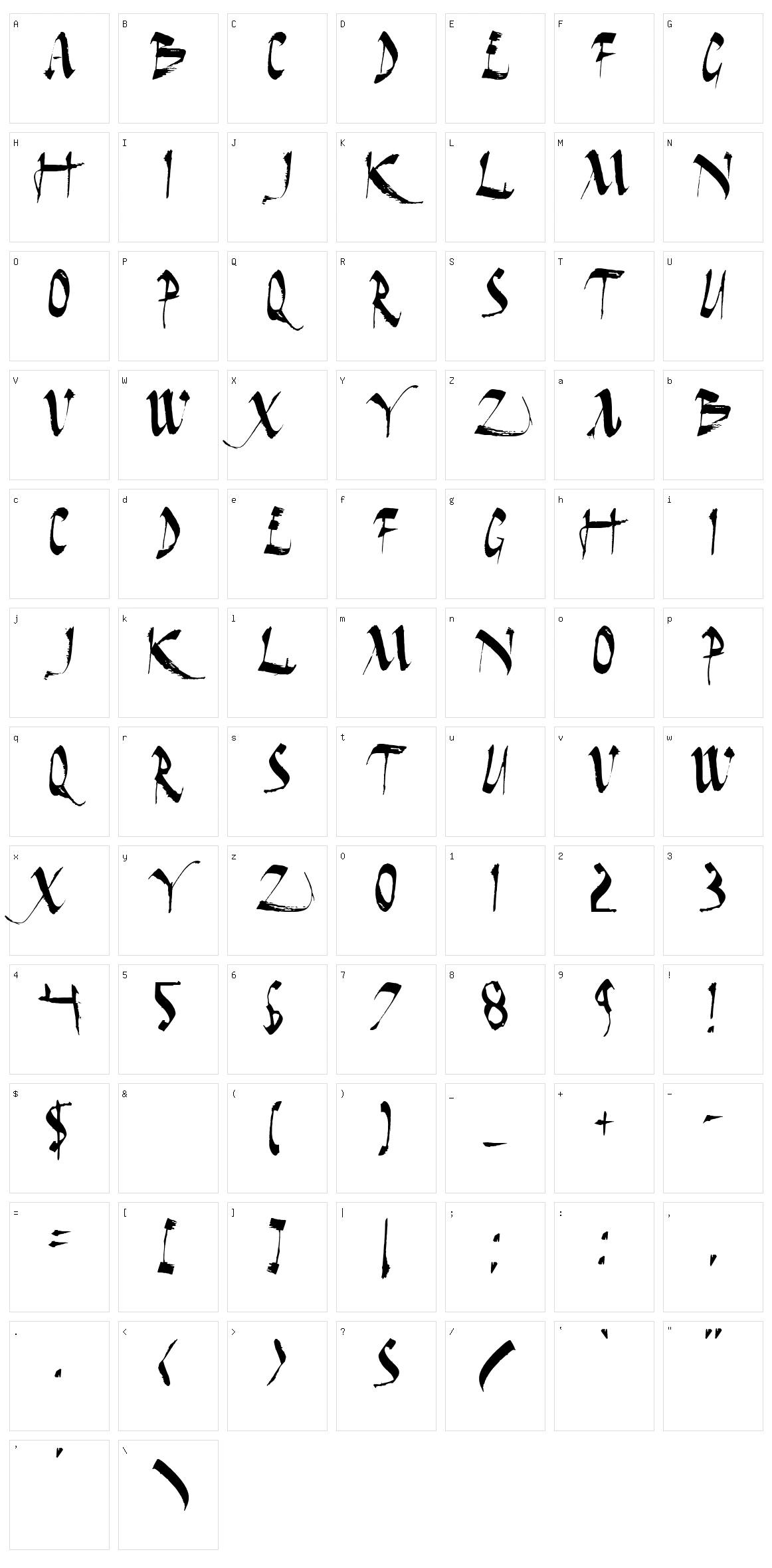
The free font Dark Horse is carefully designed by Iconian Fonts, showcasing a thoughtful balance of creativity and usability and falls under the Script font style. When you download the ZIP file, it contains only 328.31 KB of font files, making it lightweight and quick to download. Please review the license details below to understand permitted usage and distribution rights. If license information is not available, we recommend using this font for personal projects only or contacting the author directly for commercial usage permissions.
This font comes witht he following 5 versions: Regular, Italic, Condensed, Extended and Shadow